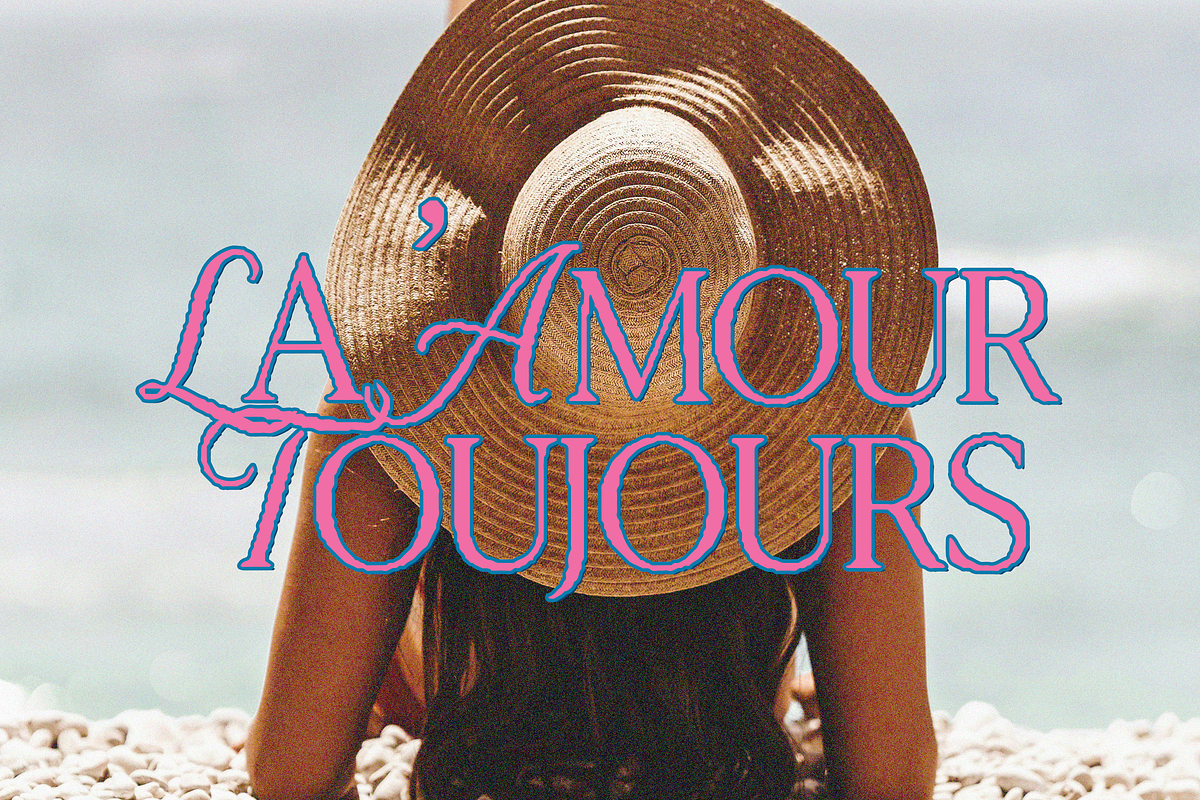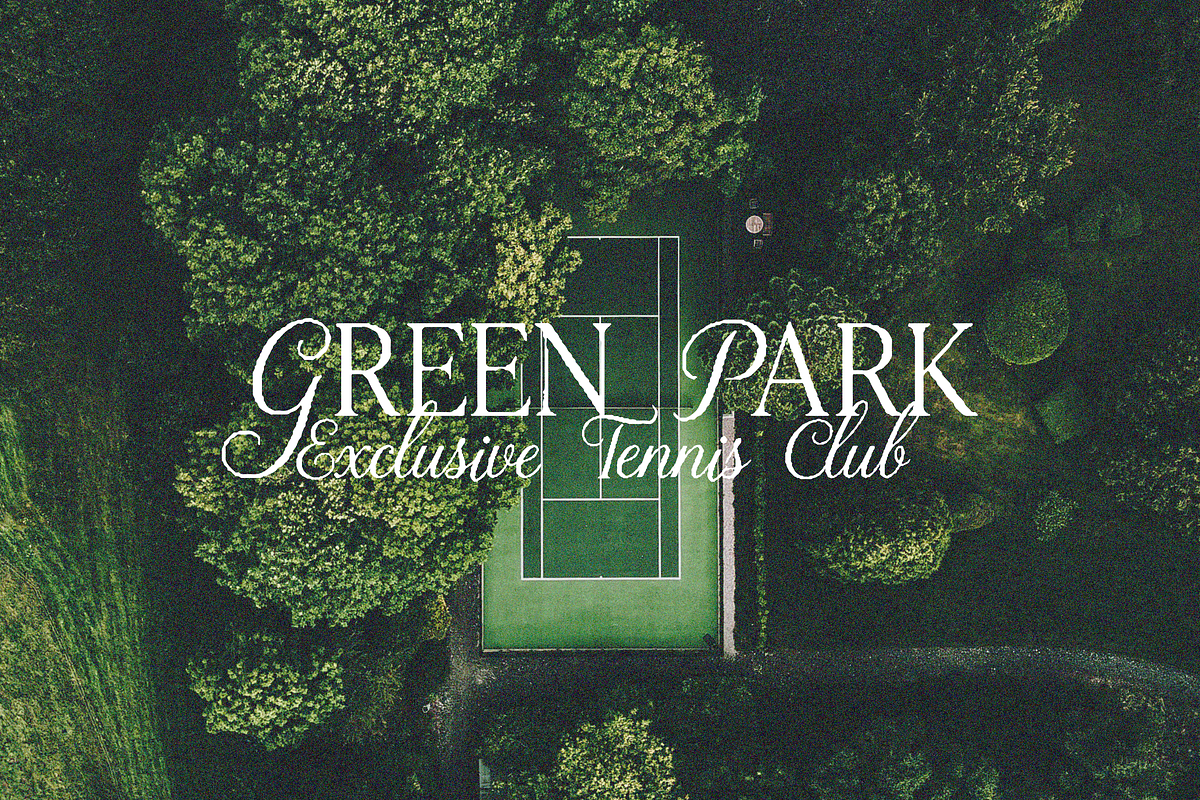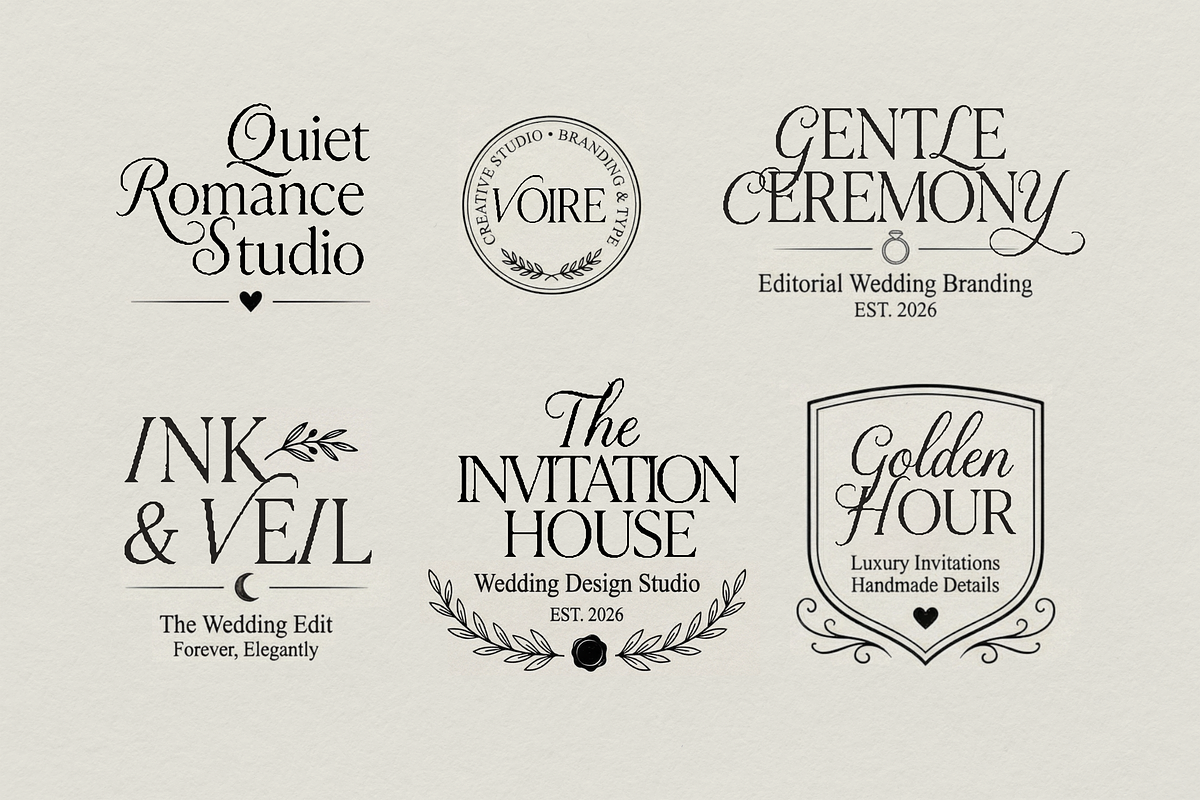
Grace Wren Font Collection
Grace Wren is a romantic little font family made for dreamy details and elegant stories. Inside you’ll find a classic Serif, a flowy Script, and a special Hybrid style that blends both looks — so you can mix serif + script (caps) inside the same word for that custom, editorial feel.
But you don’t have to stop there: all three styles are designed to work beautifully together in one design. Use Serif for clean body text, add Script for names and highlights, and sprinkle Hybrid letters for those signature moments that make everything feel elevated and intentional.
Perfect for: weddings & stationery, logos, boutique branding, packaging, beauty labels, book covers, and romantic quotes.
Made to feel like a love letter on paper.